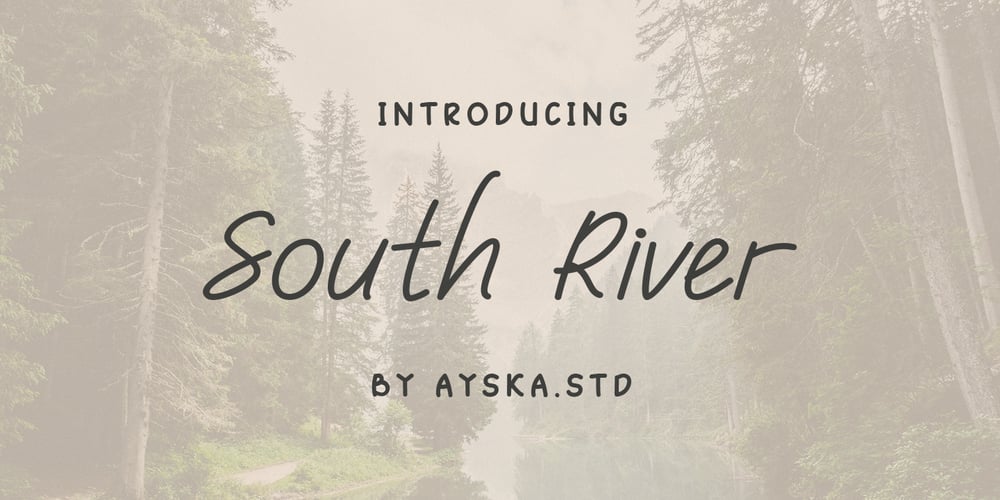
South River
South River font
South River Font Family was designed by Dhoni Trihatmoko and published by Ayska. South River contains 1 styles and family package options. “South River” a delightful handwritten font meticulously crafted with love and attention to detail. This font encapsulates the essence of joy and brings a touch of whimsy to your design projects.”South River” embodies the playful nature of handwritten script, with its charming curves and natural stroke variations. Every letter reflects the genuine warmth and sincerity of my personal handwriting, infusing your designs with a sense of individuality and happiness.With its elegant yet cheerful style, “South River” is versatile and perfect for a wide range of creative applications. Whether you’re designing logos, branding materials, invitations, greeting cards, or any project that calls for a lighthearted and personal touch, this font will add a touch of enchantment and personality.The meticulously designed letter forms of “South River” ensure both legibility and artistic appeal. Its balanced proportions and thoughtfully crafted characters make it a pleasure to work with, whether on digital or printed mediums.